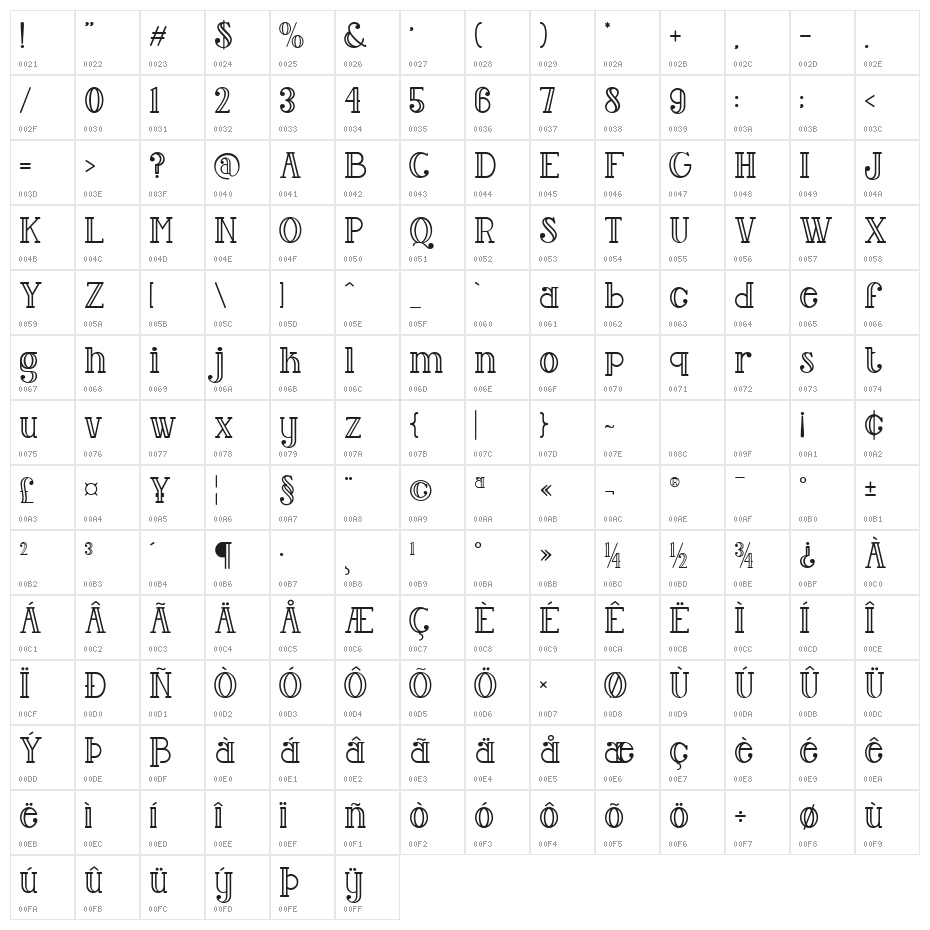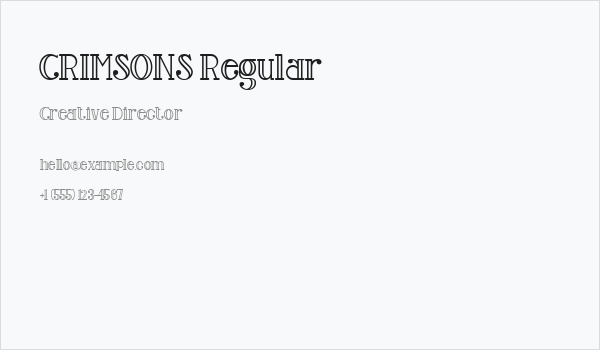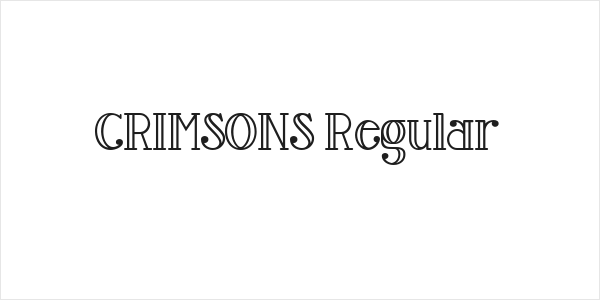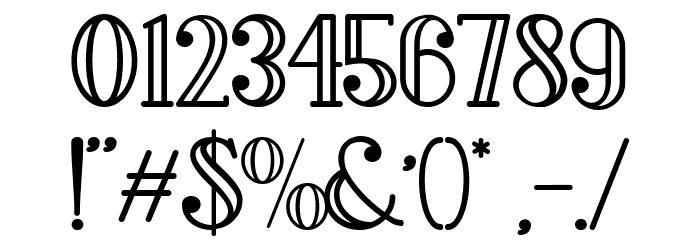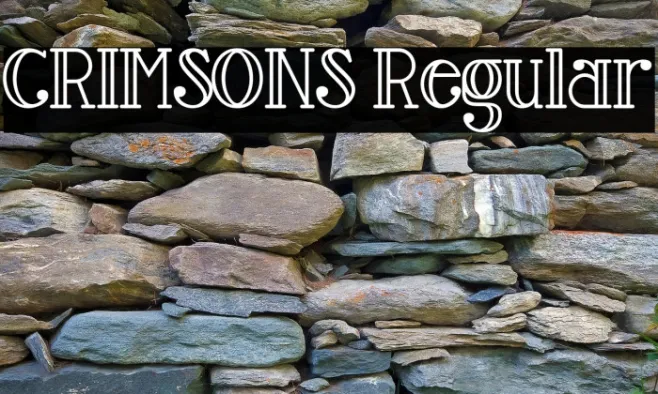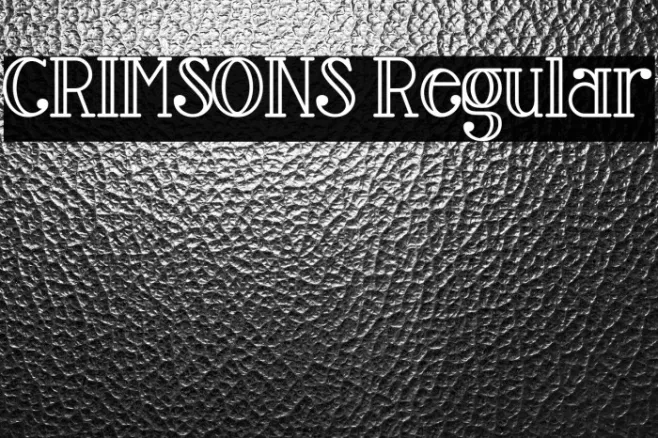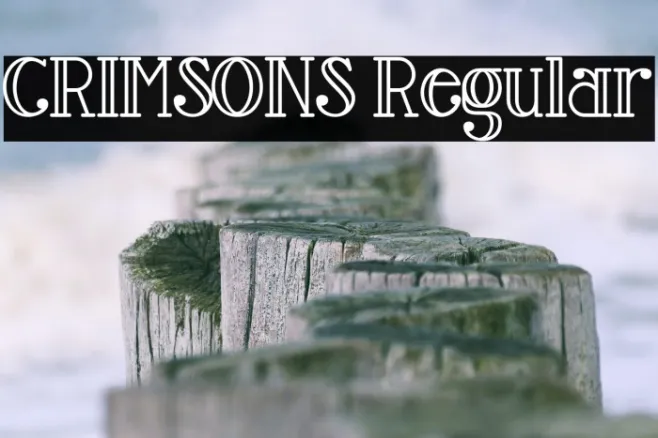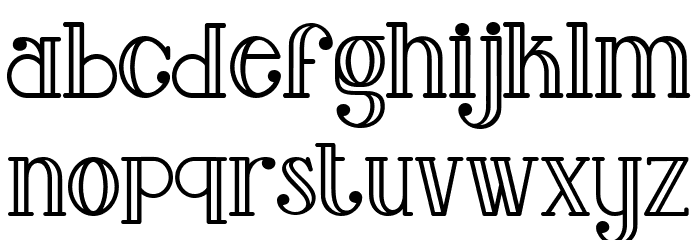
CRIMSONS Regular Font
CRIMSONS Regular Description
This font features a unique blend of classic and modern elements, characterized by its elegant and decorative serifs. The uppercase letters exhibit a refined style with distinct, rounded terminals that add a touch of sophistication. The lowercase letters maintain a consistent design, with smooth curves and a balanced structure. Numbers are crafted with similar attention to detail, ensuring readability while maintaining the font's decorative appeal. Special characters are thoughtfully designed to complement the overall aesthetic, making this font versatile for various applications.
| Proposed Projects | Ideal for branding, invitations, editorial design, and decorative headlines. |